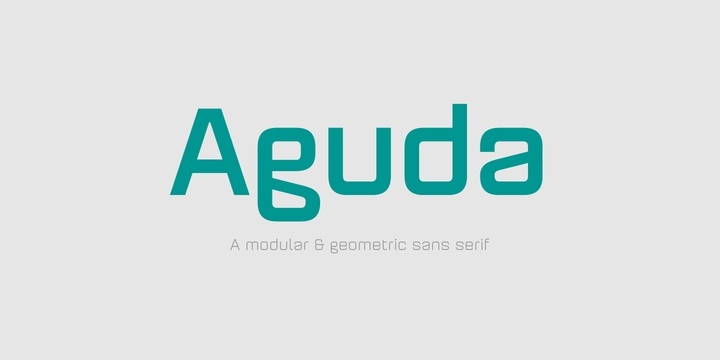
Aguda Font
The Aguda Font is a dynamic and modern sans-serif typeface known for its clean, geometric lines and sharp, confident aesthetic. It is a highly versatile font, making it an excellent choice for a wide range of projects, from professional corporate branding to stylish web design and striking editorial layouts. Its simple yet powerful letterforms ensure maximum readability, making it perfect for both large headlines and smaller body text. The Aguda Font's contemporary feel also makes it a great fit for app interfaces, posters, and any design that requires a sleek and polished appearance.
What makes the Aguda Font so exciting is its sophisticated simplicity. It manages to be both highly functional and visually appealing, with a strong, no-nonsense character that commands attention. Unlike overly decorative fonts, Aguda's clean structure provides a solid foundation for any design, allowing your content to shine. Its geometric precision gives it a sense of stability and professionalism, making it a reliable choice for designers who need a font that is both modern and timeless.
The Aguda font family is extensive and comprehensive, offering a wide range of weights from a delicate thin to a heavy black. Each weight also comes with a matching oblique style, providing you with incredible flexibility to create a strong visual hierarchy and dynamic compositions. This full-featured family includes a complete set of uppercase and lowercase letters, numbers, punctuation, and support for multiple languages, ensuring you have every tool you need to create a complete and cohesive design.